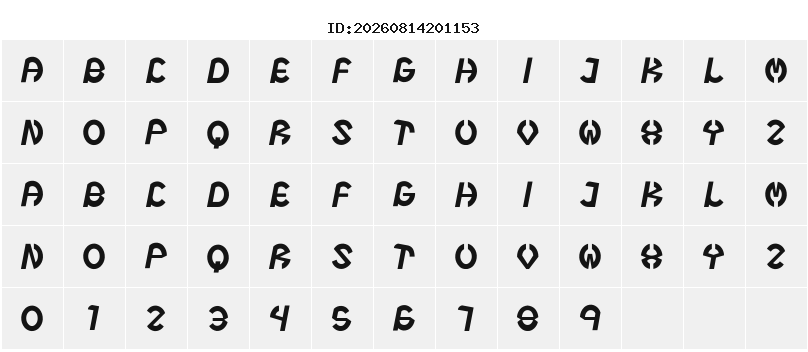
• Font Name: Steel Boy__G
About Steel Boy__G.ttf
Steel Boy__G.ttf is a modern, elegant sans-serif font designed for ultimate readability and visual harmony. Perfect for branding, headlines, web design, and print materials.